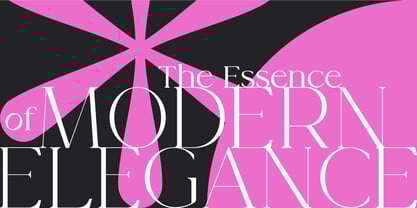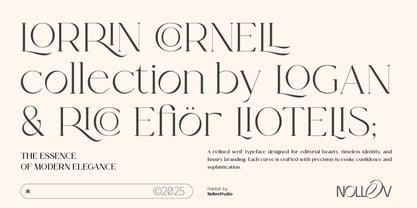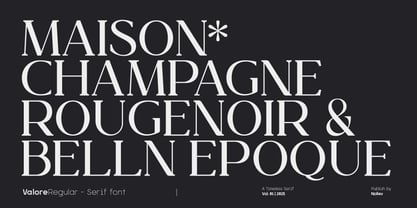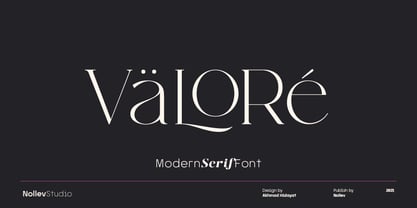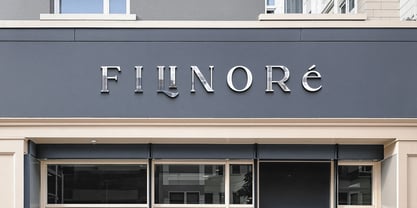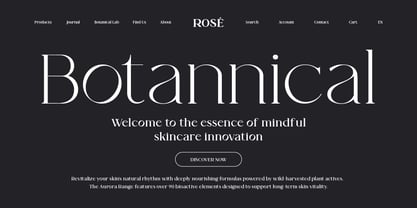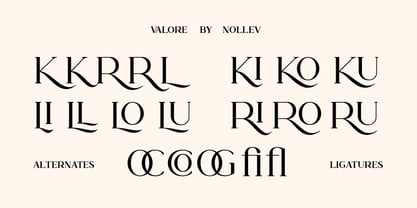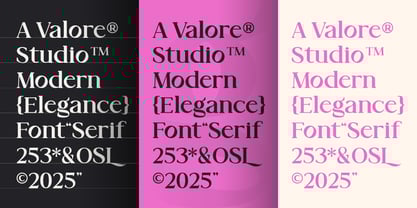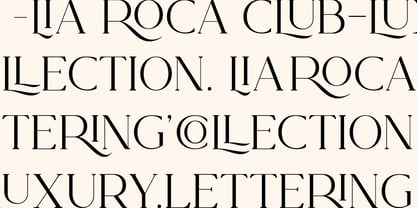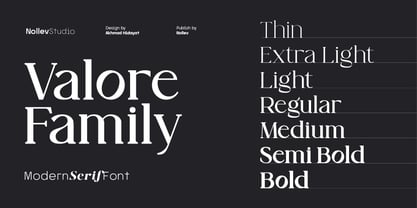
Valore
Die Schriftfamilie Valore wurde von Akhmad Hidayat entworfen und von Nollev veröffentlicht. Valore enthält 7 Stile und Familienpaketoptionen. Mehr über diese Familie
Valore is a modern elegant serif font family designed with timeless sophistication and refined details. Featuring graceful contrast and stylish letterforms, Valore offers a perfect balance between delicacy and strength — ideal for luxury branding, editorial design, and contemporary layouts. This family includes 7 weights — giving designers full flexibility for both minimalist and expressive compositions. With smooth curves, sharp serifs, and beautifully crafted alternates, Väloré elevates any project with a premium, high-end aesthetic. ✨Features: 7 Weights: Thin → Bold Alternates & Ligatures included Uppercase & lowercase letters Multilingual support High contrast modern serif design Perfect for logos, branding, editorial, and luxury packaging 💡 Perfect For: Luxury branding & fashion design Editorial layouts & magazine titles Beauty & lifestyle packaging Minimalist logos & advertising Elegant invitations & stationery